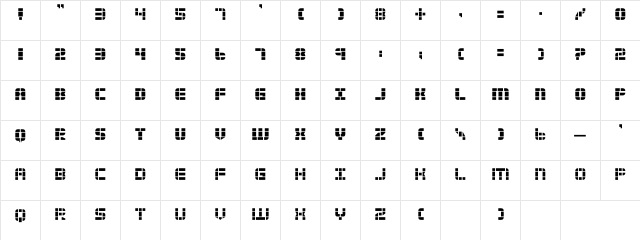
2Tech Regular Font Preview
2Tech Regular
2Tech Regular Font Details
Design Context for 2Tech Typeface
2Tech channels digital-age aesthetics through its sharp, structured letterforms — ideal for brands that want to signal innovation.
Pro Tip: Try 2Tech with generous letter-spacing in UI labels and navigation — the geometric forms benefit from room to breathe.